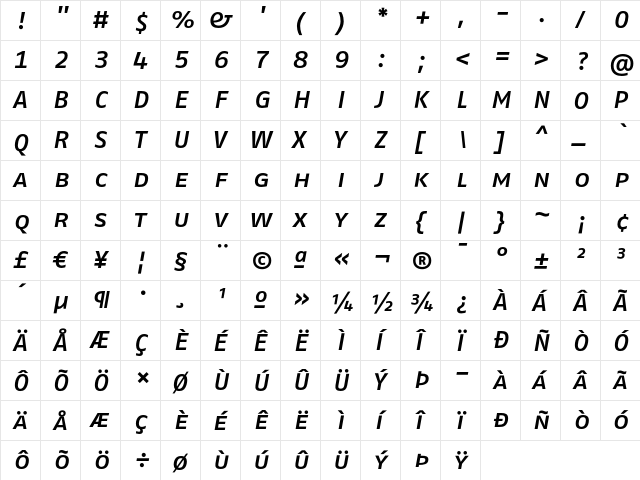
FagoExTf MediumItalicCaps
Design Context for FagoExTf Typeface
FagoExTf offers clean, dependable letterforms without strong stylistic allegiance, making it a practical choice for designers who need flexibility. The slanted form adds forward momentum and visual energy.
Pro Tip: Try FagoExTf for annotation and caption copy alongside an upright companion — the contrast in angle creates a dynamic but ordered typographic system.